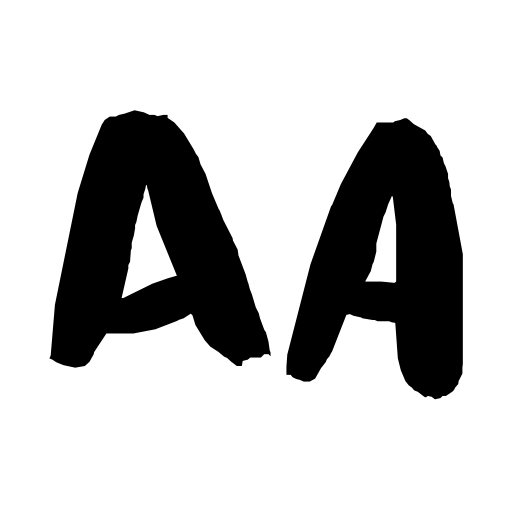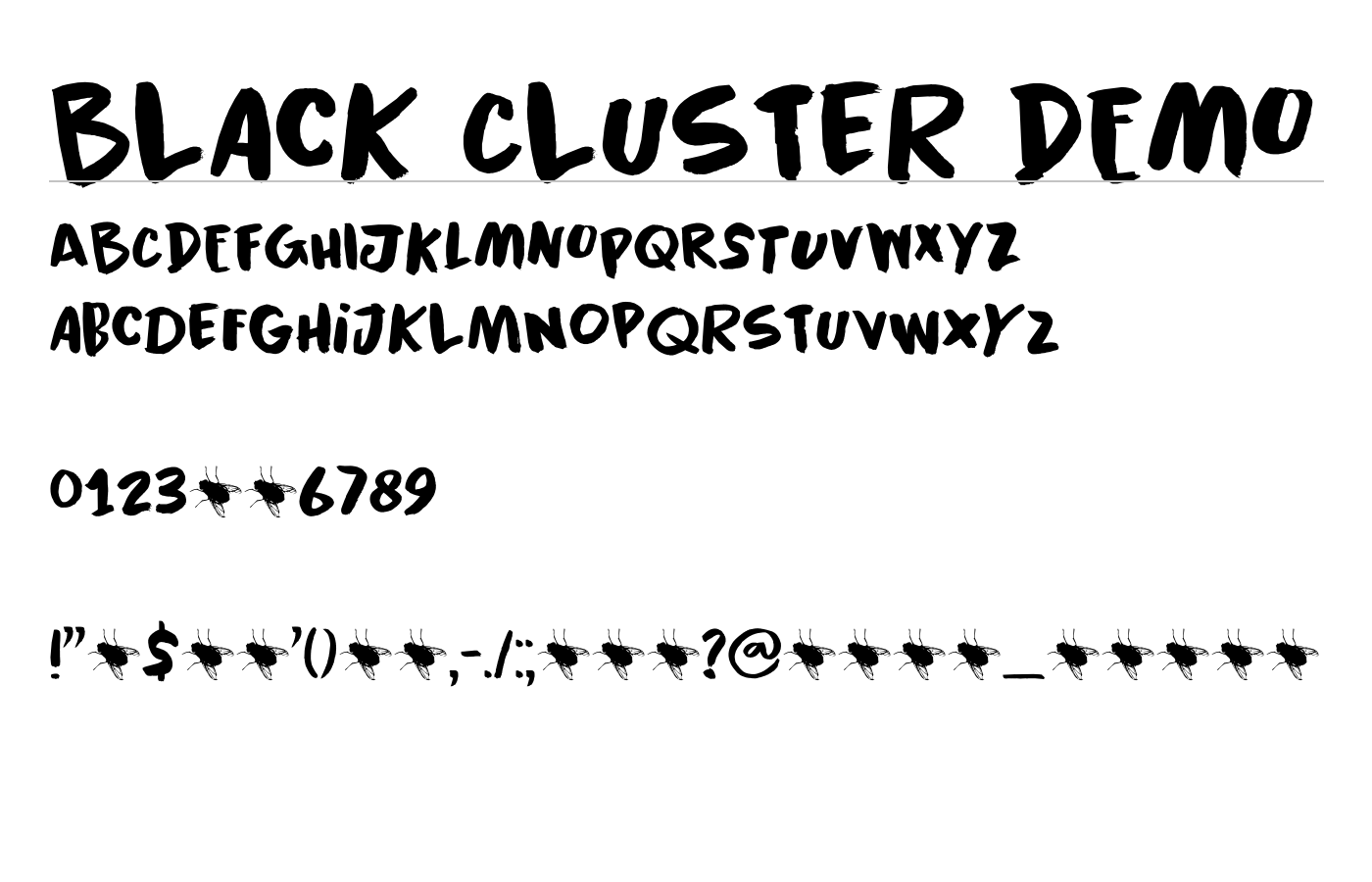
Black Cluster DEMO is a bold, playful handwritten sans serif font with a strong, rough brushstroke texture that gives it an energetic and informal feel. Its irregular letterforms and thick strokes make it perfect for creative projects, eye-catching headlines, and designs that want to convey a fun and dynamic personality. This font works well for casual branding, posters, and artwork where a bold, expressive style is desired.
Black Cluster DEMO Font
About Black Cluster DEMO Font